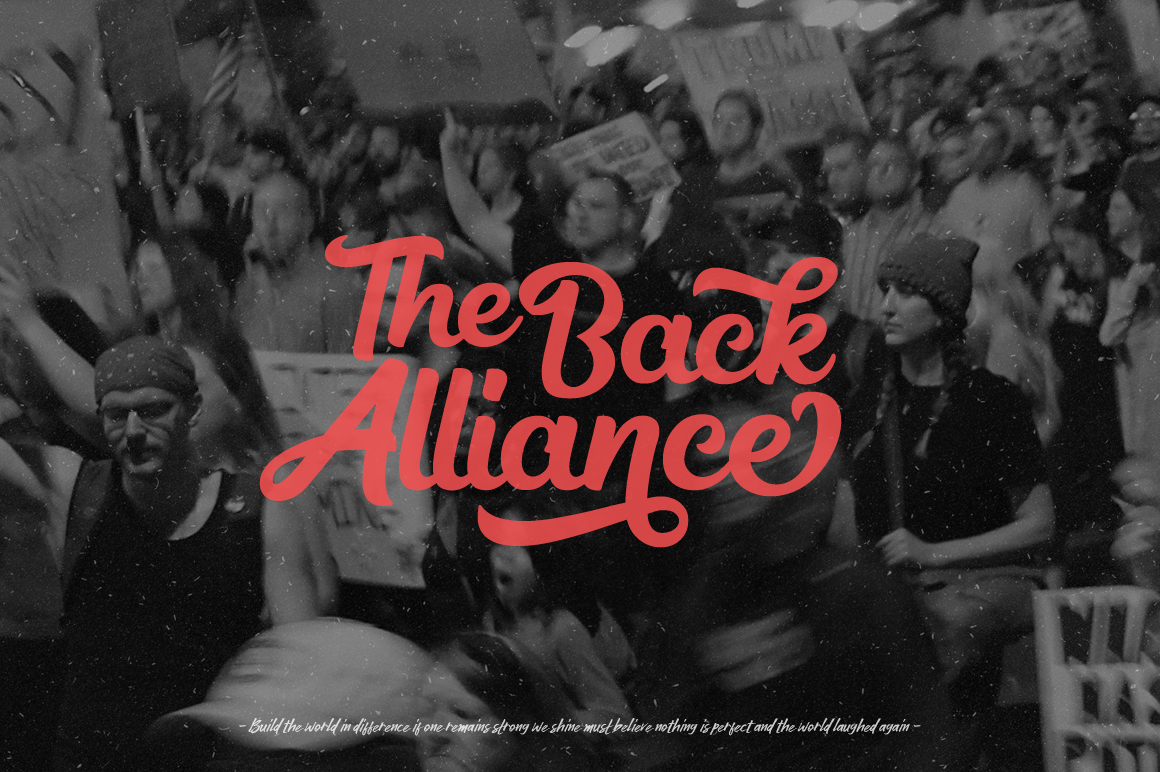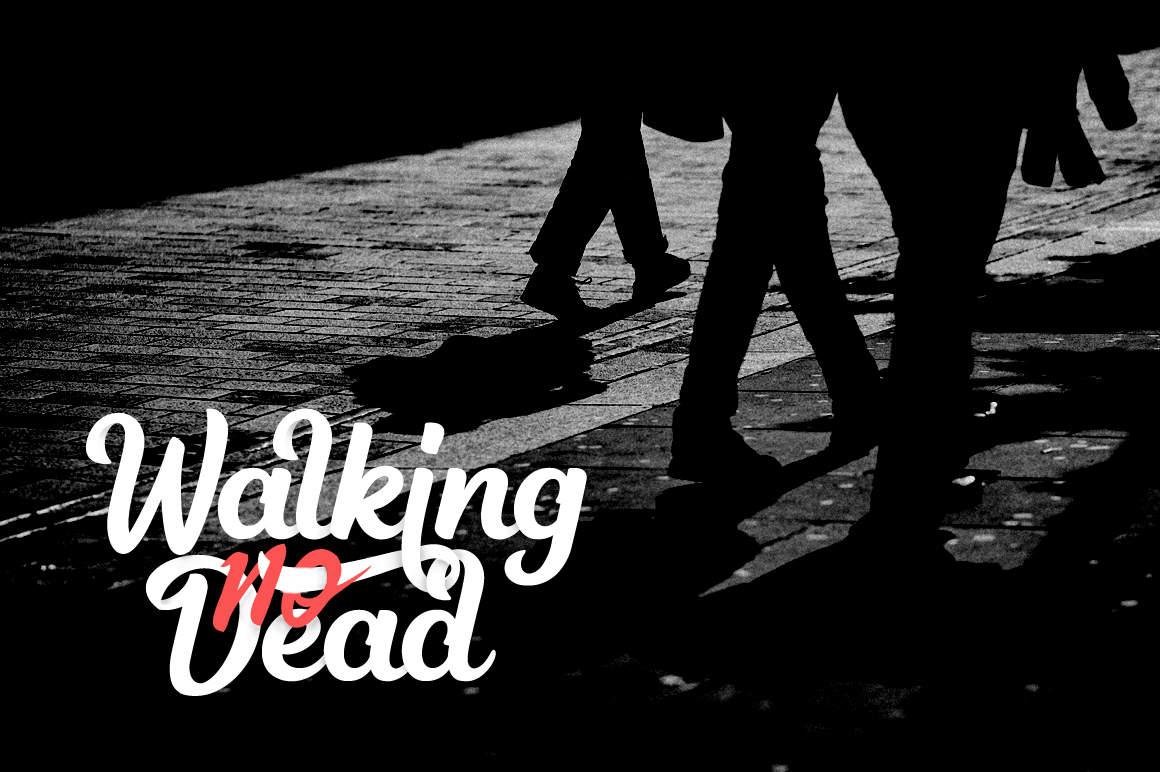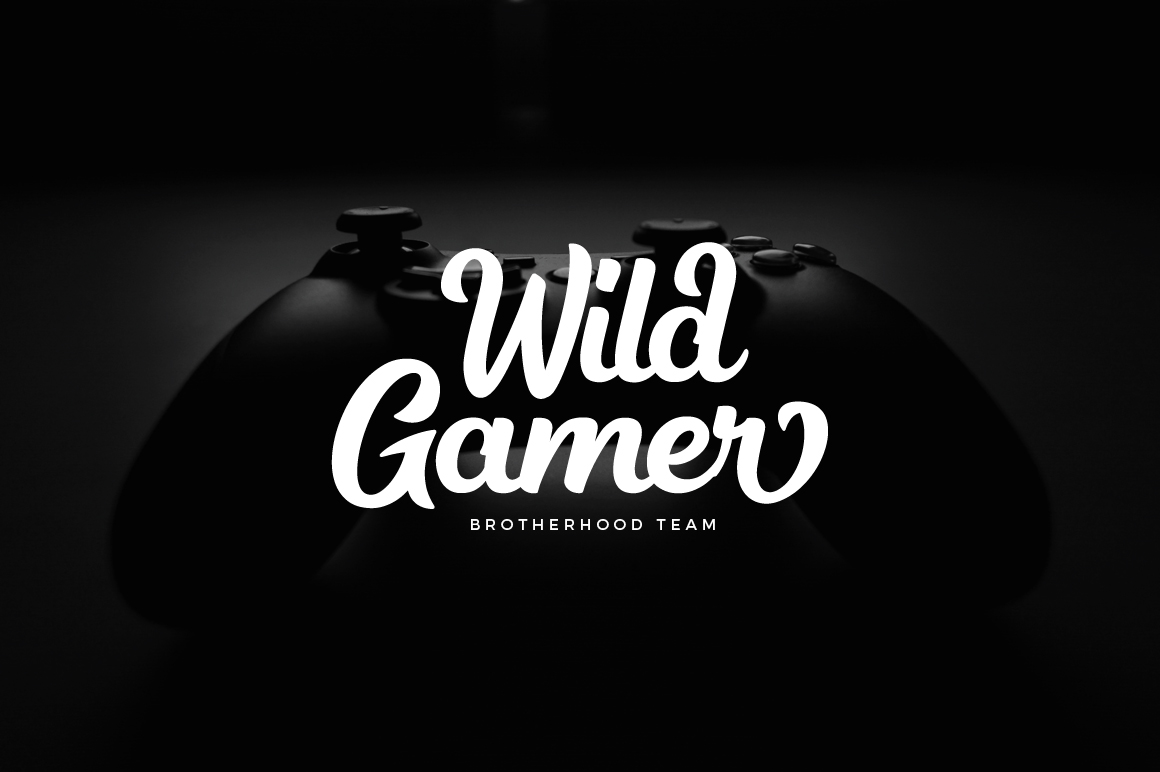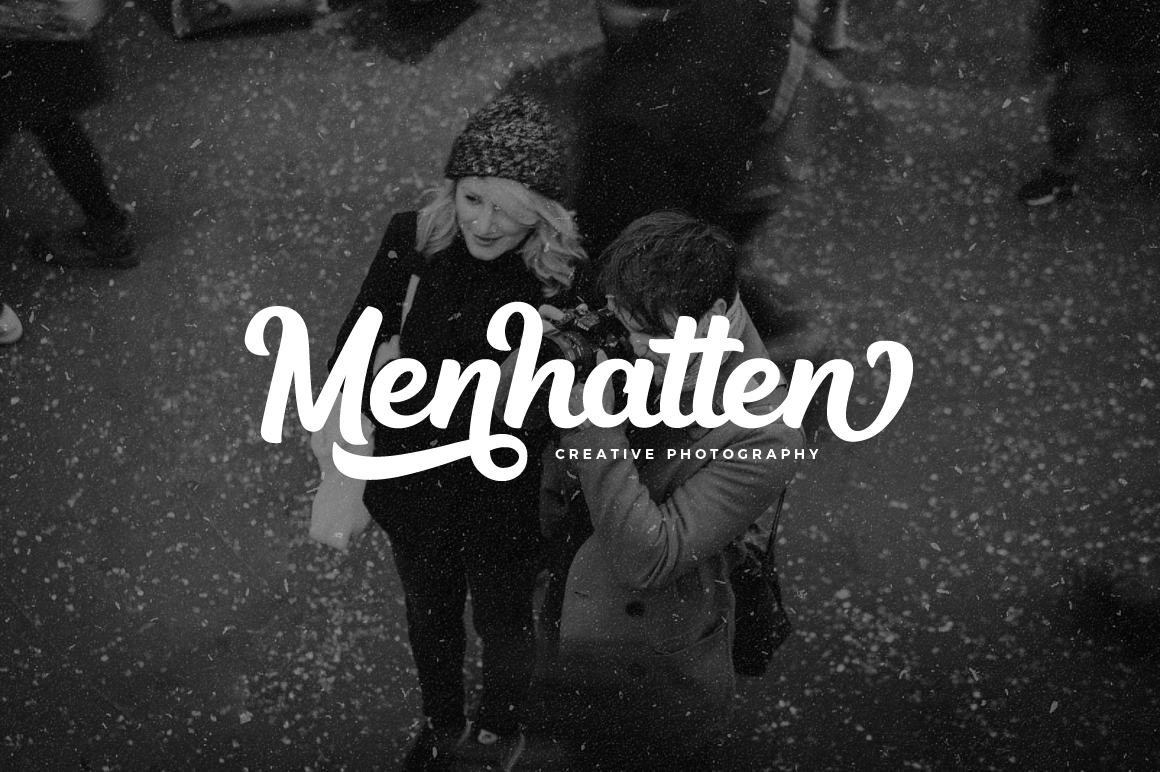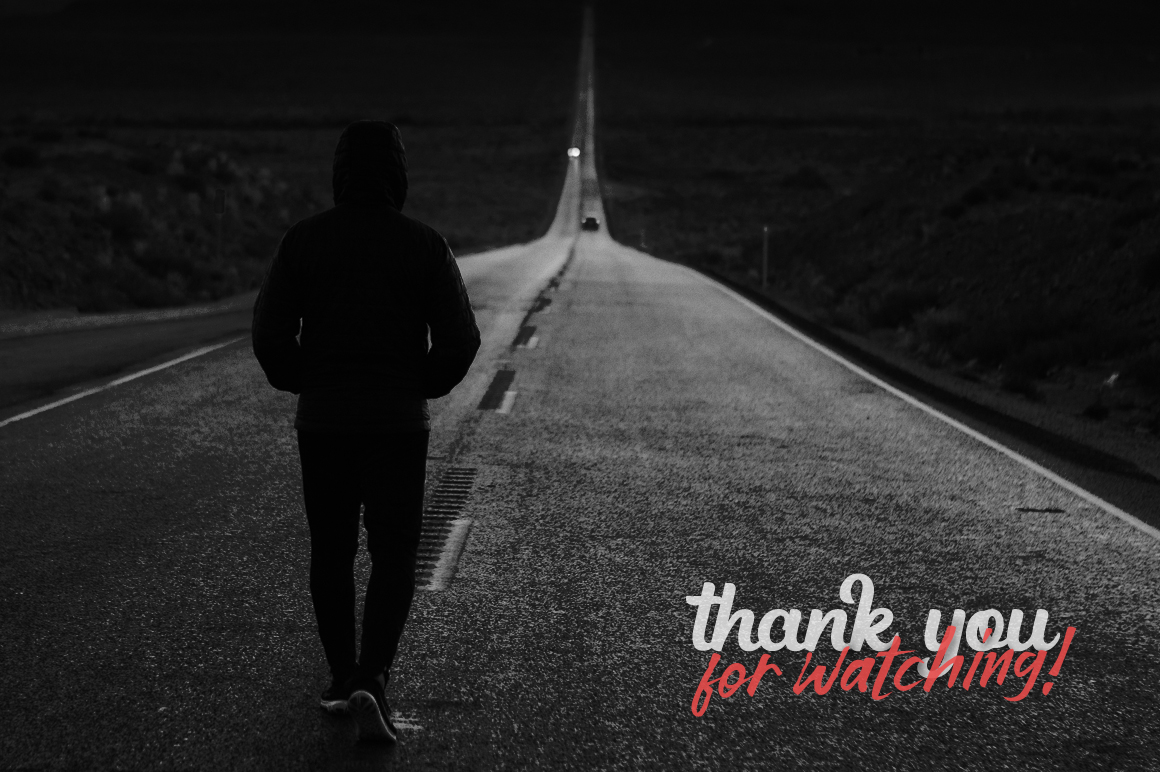
Medinah Font
About Medinah Font
Medinah is a stunning and bold script, completely suitable for a large number of designs. This font will leave you breathless, and give all your designs the impact they need to stand out from the crowd.